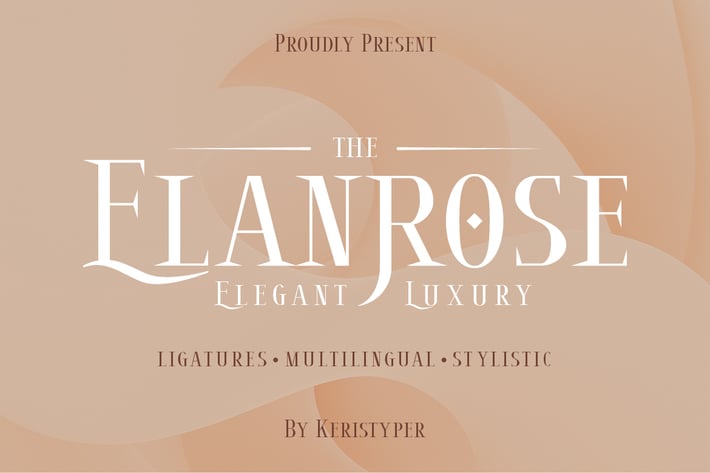
Elanrose Font
Introducing the modern-style serif font Elanrose with an elegant and luxurious feel in every shape. This font is good for logo design, Social media, Movie Titles, Books Titles, short text even long text letters, and good for your secondary text font with sans or serif.
Standard Uppercase & Lowercase
Multilingual : ä ö ü Ä Ö Ü ß ¿ ¡
Alternate & Ligature